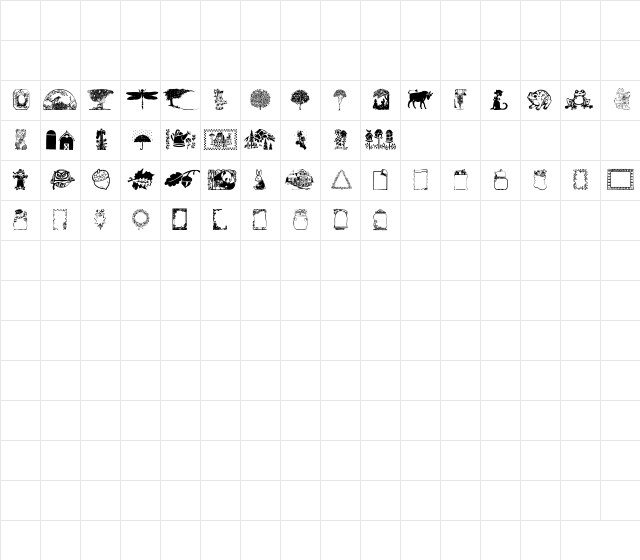
AngelsMisc1 Regular Free Font
AngelsMisc1 Regular
Foundry: High-Logic
Designer: High-Logic - Erwin Denissen
Design Context for AngelsMisc1
AngelsMisc1 is a composed and adaptable typeface that performs quietly and consistently across a wide range of design contexts.